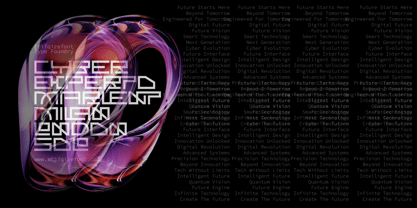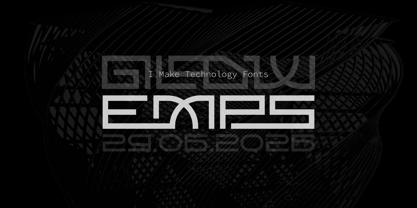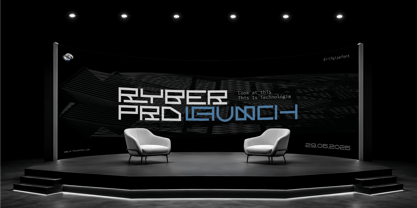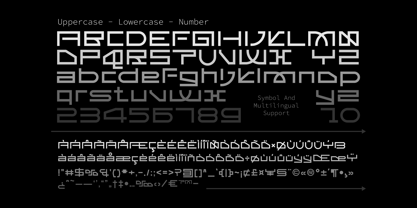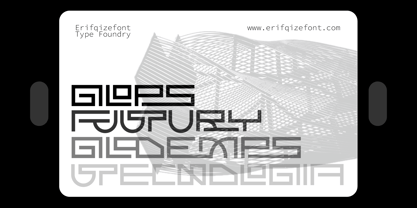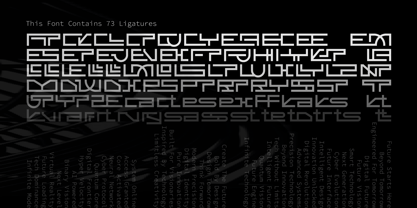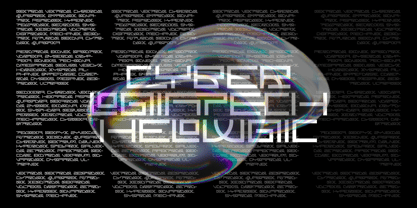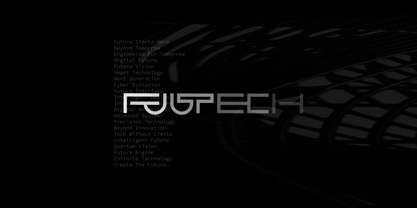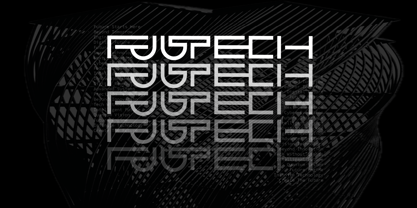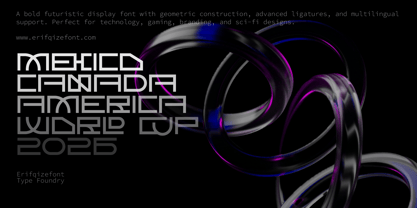
Fuutech
by Erifqizefont
The Fuutech Font Family was designed by Eka Rifqi Setiawan and published by Erifqizefont. Fuutech contains 1 styles. More about this family
Introducing Fuutech – A bold, futuristic display font designed for the next generation of tech and sci-fi aesthetics.
With its ultra-modern cuts, geometric structure, and cybernetic feel, Fuutech perfectly captures the essence of digital evolution, artificial intelligence, and aerospace design. This font features 73 unique ligatures that allow you to seamlessly connect characters, creating highly customized and sophisticated logos, branding materials, or headlines with ease.
Equipped with full multilingual support, Fuutech ensures your designs look sharp and coherent across global markets. Whether you are designing a gaming interface, cyberpunk posters, tech startup branding, crypto tokens, or cinematic title sequences, Fuutech delivers an instant cutting-edge impact.
Designers: Eka Rifqi Setiawan
Foundry: Erifqizefont